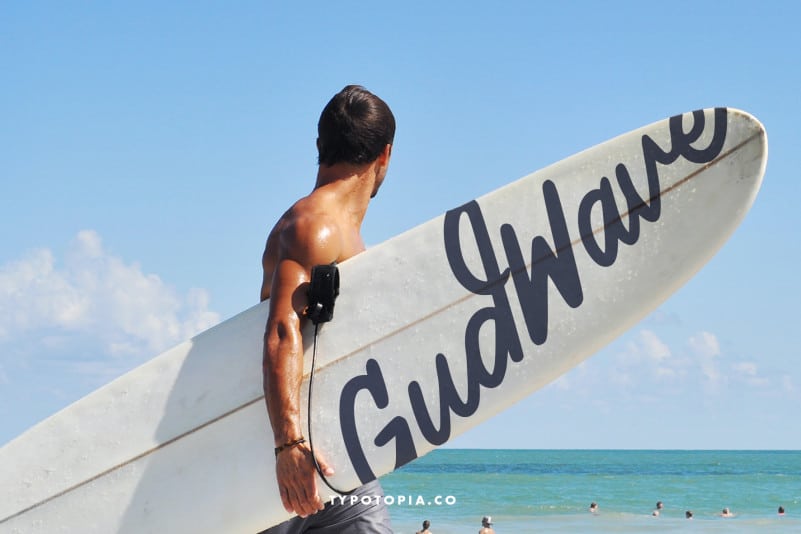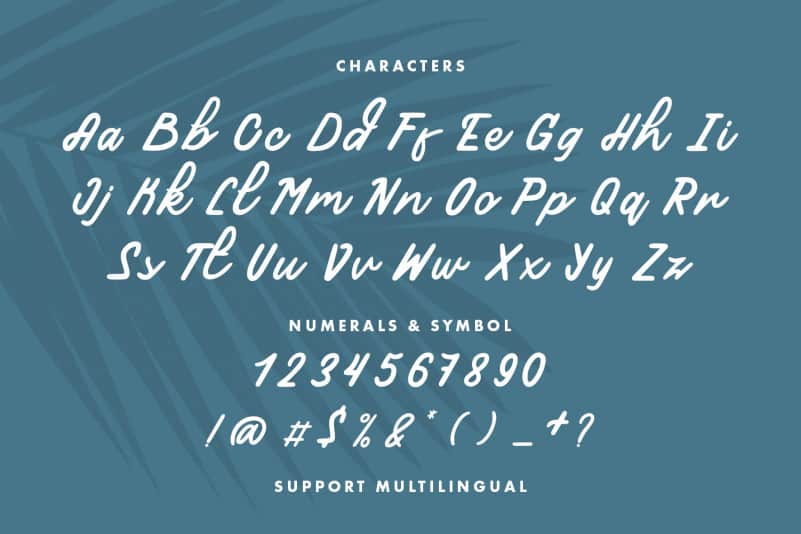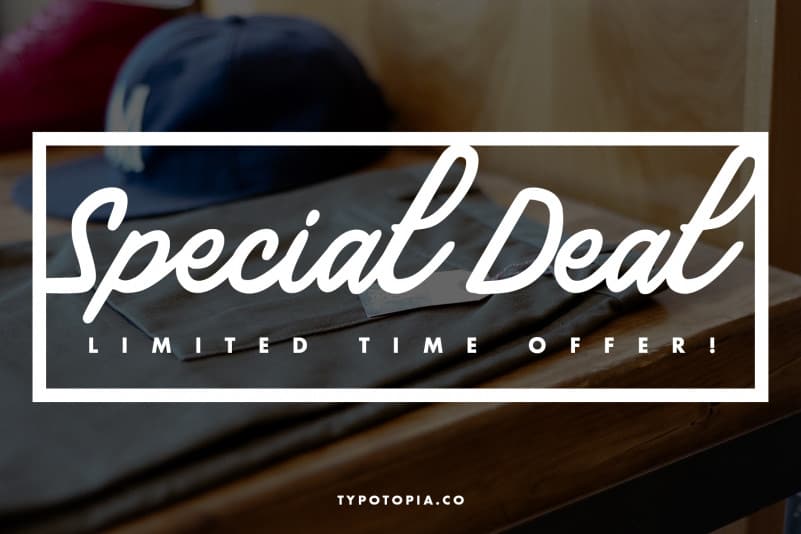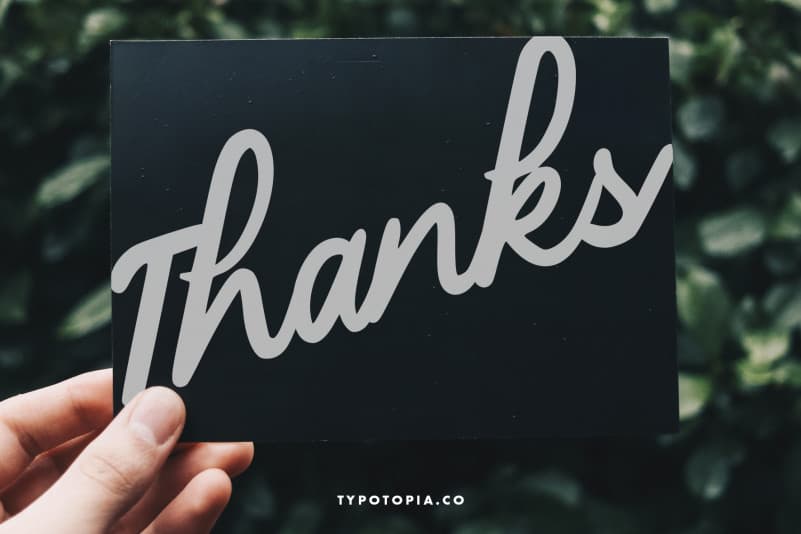
Aquila Handdrawn Script Font
Introducing, Aquila Handdrawn Script Font a Fancy & Unique Script Font!!
Aquila Handdrawn Script Font is a Fancy & Unique Script Font that is absolutely great for your next creative project such as logos, printed quotes, invitations, cards, product packaging, headers, Logotype, Letterhead, Poster, Apparel Design, Label, and etc.
This Versatile Font includes also support a Multilingual Characters. Making this Font a Swiss Army knife in your Font Library. It’s extremely fun to use as each word can be transformed to your liking.